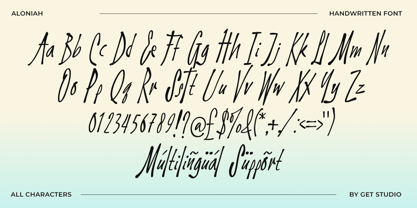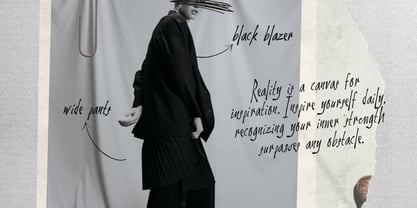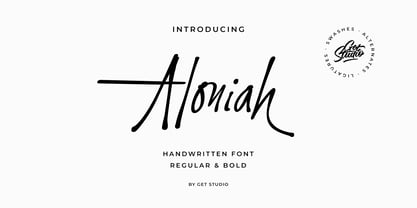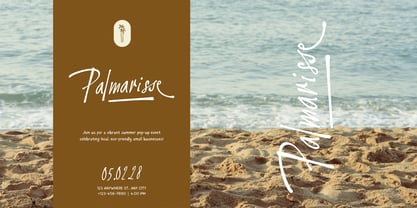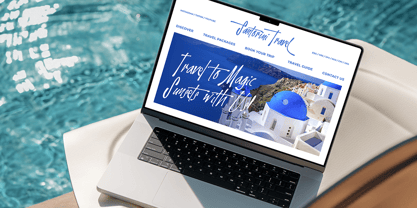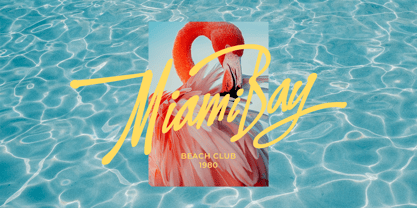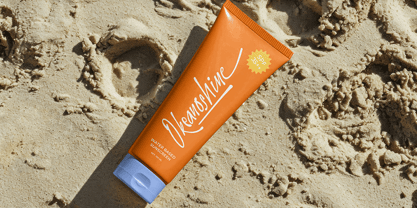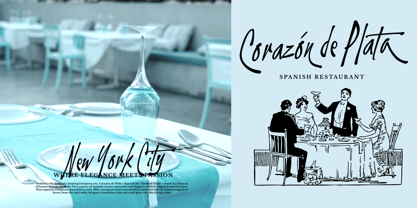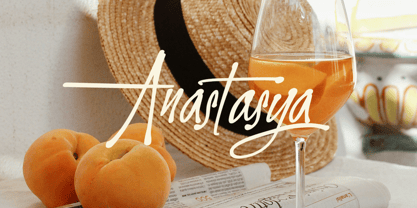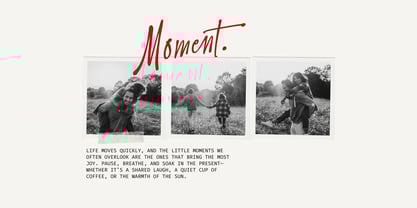
Aloniah
by Get Studio
The Aloniah Font Family was designed by Hermansyah and published by Get Studio. Aloniah contains 2 styles and family package options. More about this family
Aloniah is a handwritten font that blends elegant penmanship with expressive, natural strokes. Designed with smooth monoline curves and a dynamic flow, this font brings a casual yet refined look.
Available in two styles — Regular and Bold — Aloniah is perfect for projects that require a personal touch, such as branding, wedding invitations, aesthetic quotes, and social media content.
Each character in Aloniah is crafted with attention to detail, offering a fluid and authentic writing feel. Enhanced with swashes, alternates, and ligatures, it provides flexibility and style variety for creative designs. Created by Get Studio, Aloniah is an ideal choice for designers seeking to add a graceful, artistic, and feminine flair to their work.